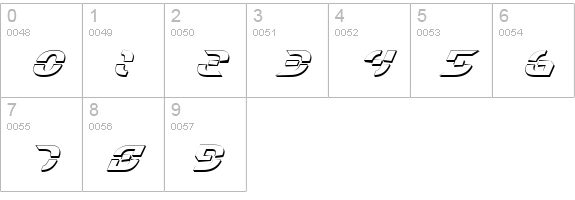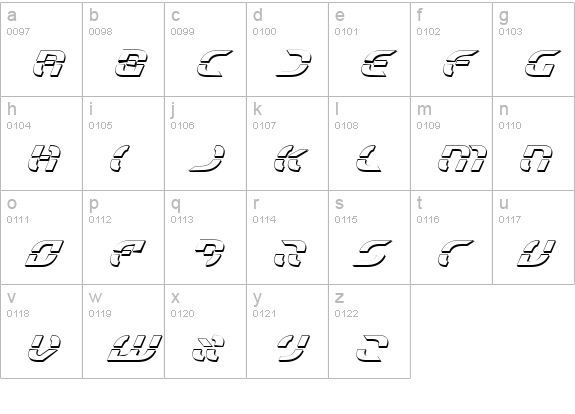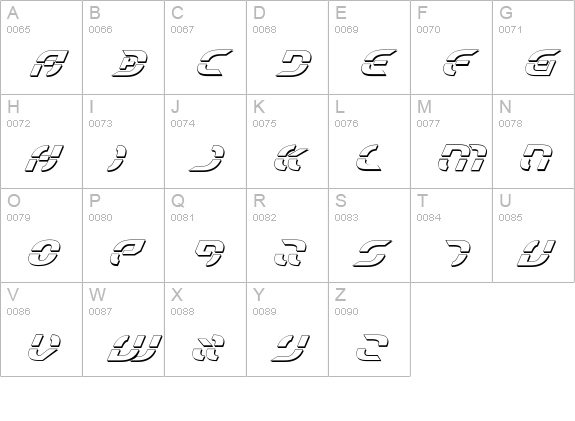
Starfighter Shadow Italic is a distinctive, italic variant in the Starfighter typeface family \xE2\x80\x94 well suited to design and typography projects.
Starfighter Shadow Italic font is a sleek and futuristic typeface that exudes a sense of adventure and excitement. Its bold strokes and sharp angles give it a dynamic and energetic look that is perfect for capturing attention. The italic style adds a touch of sophistication and modernity to any design project. This font is ideal for use in sci-fi themed projects, space exploration campaigns, gaming graphics, and any other creative work that requires a bold and impactful typeface. Whether you're designing a poster, logo, website, or any other visual content, Starfighter Shadow Italic font will help you make a statement and stand out from the crowd. Best of all, Starfighter Shadow Italic font is completely free to download at FontsMarket.com. So you can unleash your creativity without any restrictions and bring your designs to life with this stunning and eye-catching typeface. Download it now and take your projects to the next level!